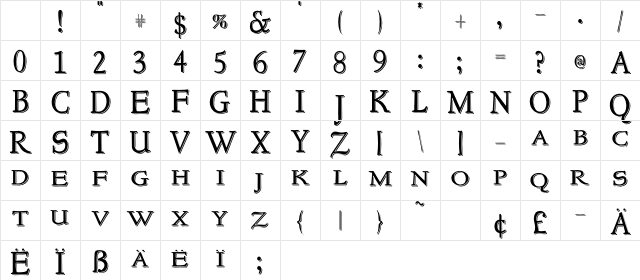
NewStyleTitling Embossed Regular
Design Context for NewStyleTitling Embossed
NewStyleTitling Embossed is a composed and adaptable typeface that performs quietly and consistently across a wide range of design contexts.
Pro Tip: Use NewStyleTitling Embossed in both headline and body roles to test its range before committing to a single application.